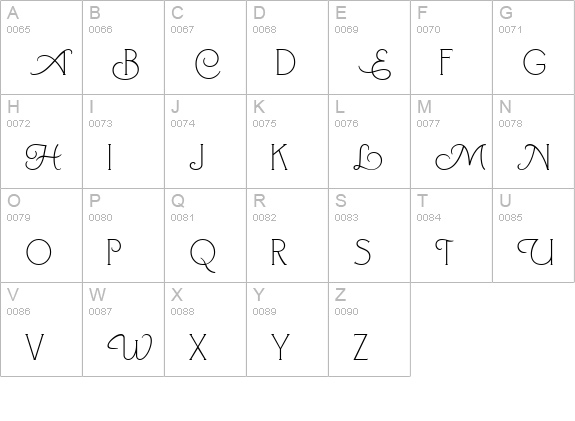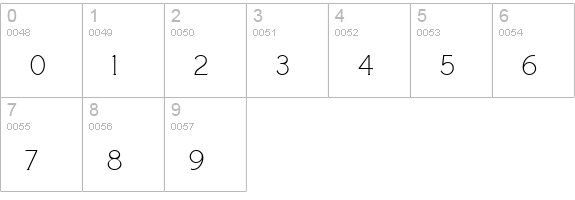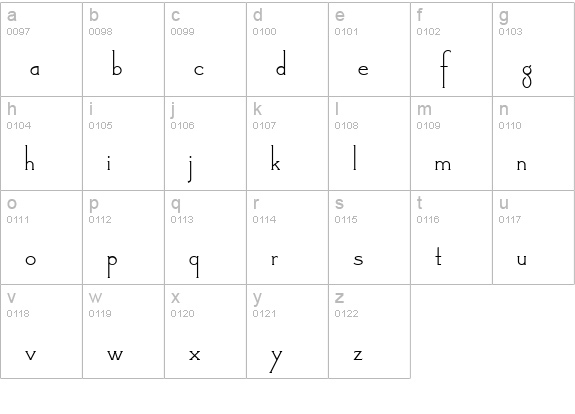
Londonderry Air NF Font Details
Londonderry Air NF font is a timeless and elegant typeface that exudes sophistication and charm. With its graceful curves and classic letterforms, this font is perfect for adding a touch of refinement to any project. Whether you're designing a wedding invitation, creating a logo, or crafting a beautiful poster, Londonderry Air NF font will elevate your work to new heights. What's even better is that Londonderry Air NF font is completely free to download at FontsMarket.com. That's right, you can access this stunning font at no cost and use it in your personal or commercial projects without any restrictions. So why wait? Enhance your designs with the beauty of Londonderry Air NF font today!